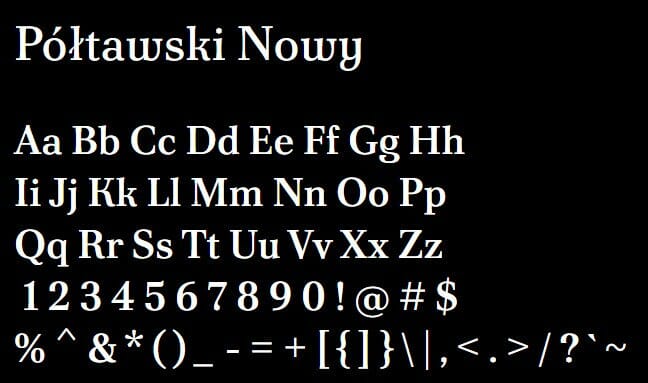
Półtawski Nowy Font
Półtawski Nowy Font: The perfect font for branding and marketing materials. Półtawski Nowy is a versatile font that can be used for a variety of branding and marketing materials. The font has a classic and refined look, making it a great choice for business cards, brochures, and presentations. Półtawski Nowy is also available in a variety of weights, so you can choose the perfect font for your needs.